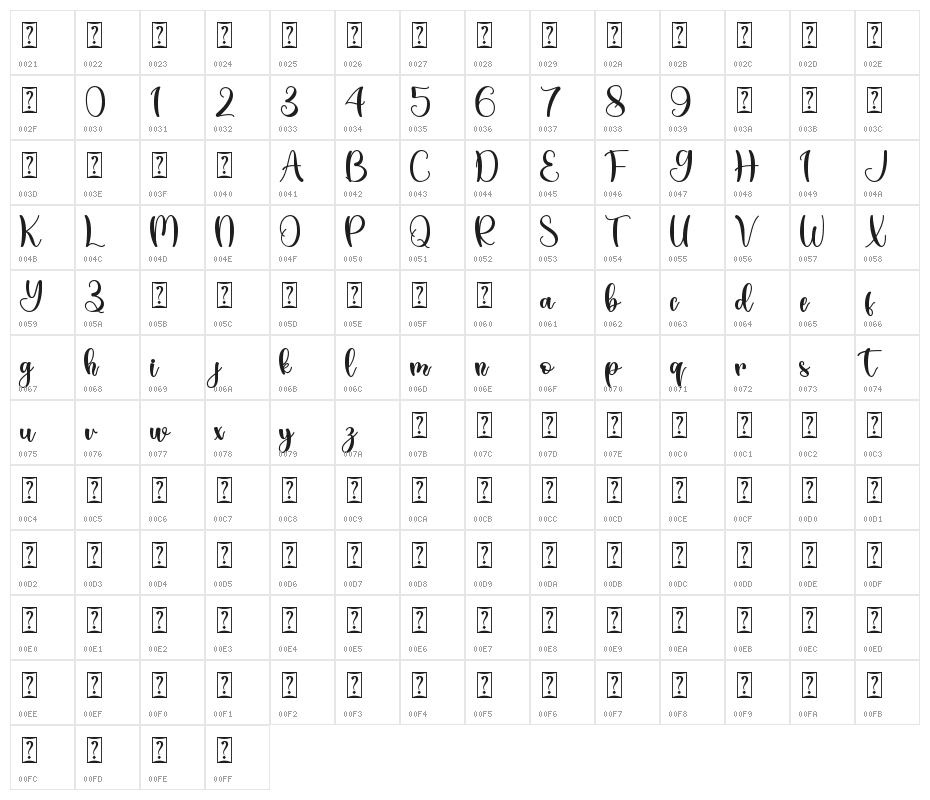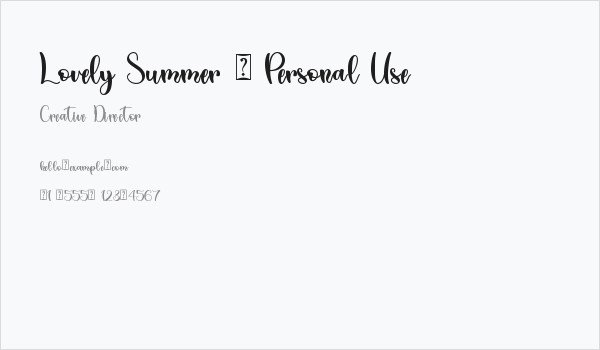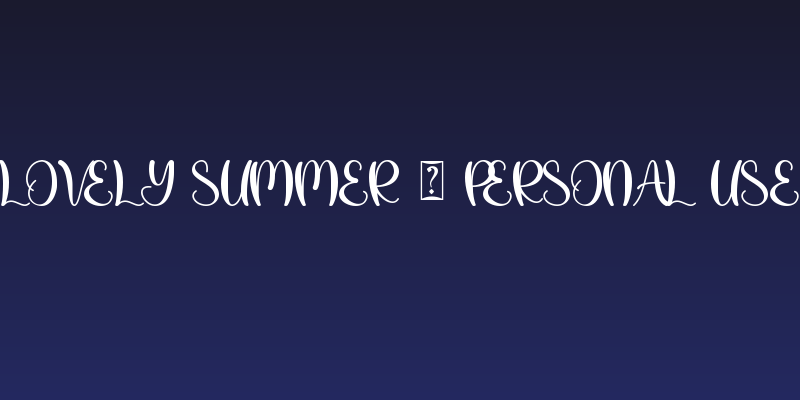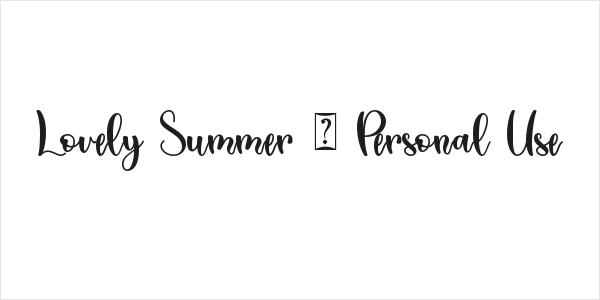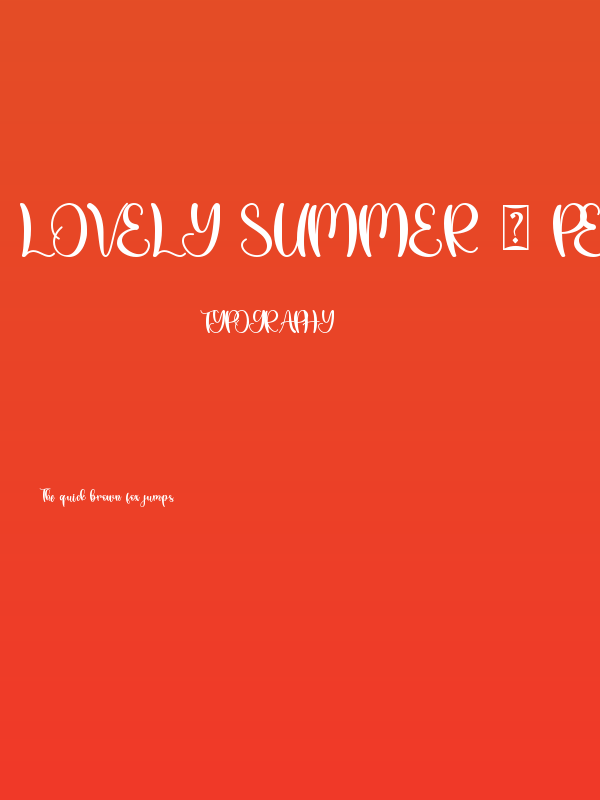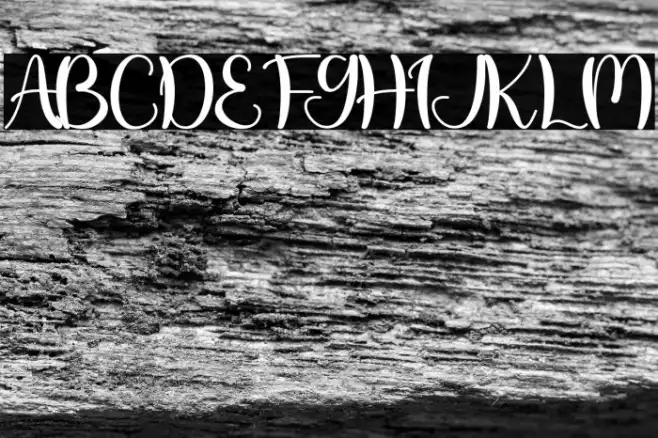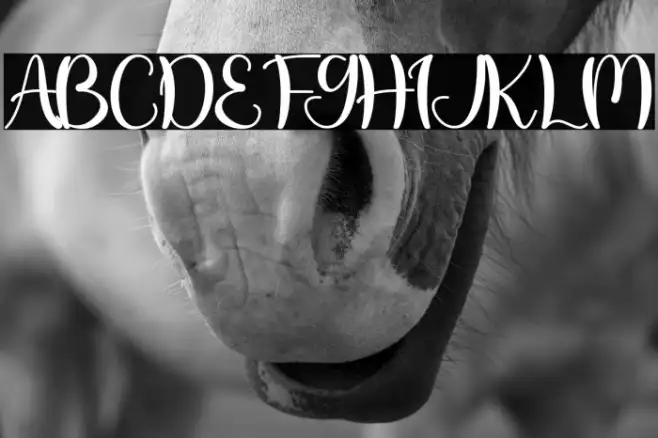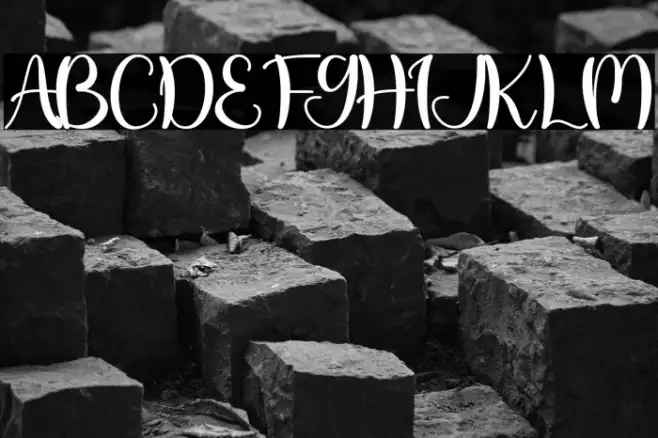
Lovely Summer - Personal Use Font
Lovely Summer - Personal Use Description
This font features a playful and elegant script style with flowing, cursive letterforms. The uppercase letters are bold and expressive, with intricate loops and swirls that add a touch of sophistication. The lowercase letters maintain a consistent flow, enhancing readability while retaining the decorative flair. The numerals are equally stylish, with a harmonious blend of curves and lines. This font is perfect for creating a warm and inviting atmosphere, making it ideal for personal projects, invitations, and branding that seeks a friendly yet refined look.
| Proposed Projects | Ideal for wedding invitations, greeting cards, personal branding, and decorative signage. |